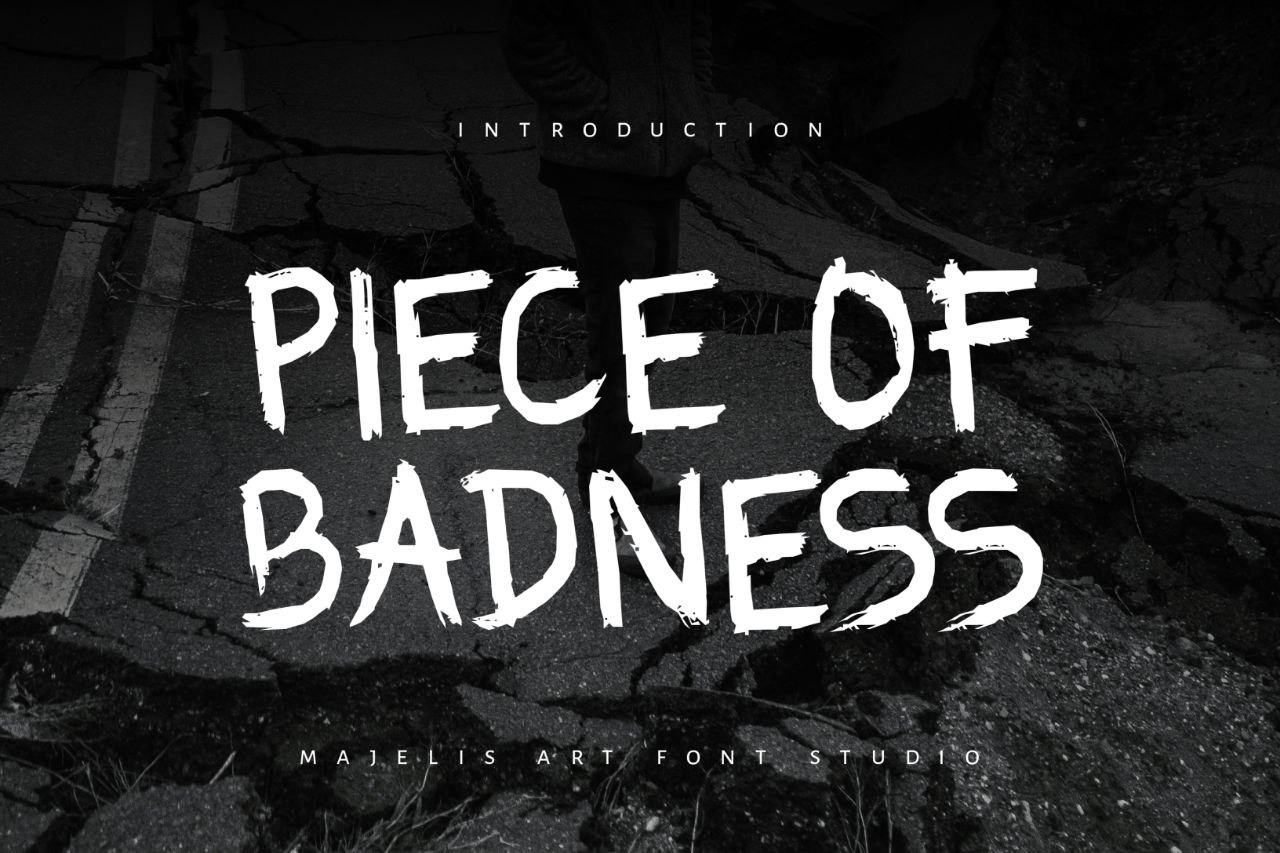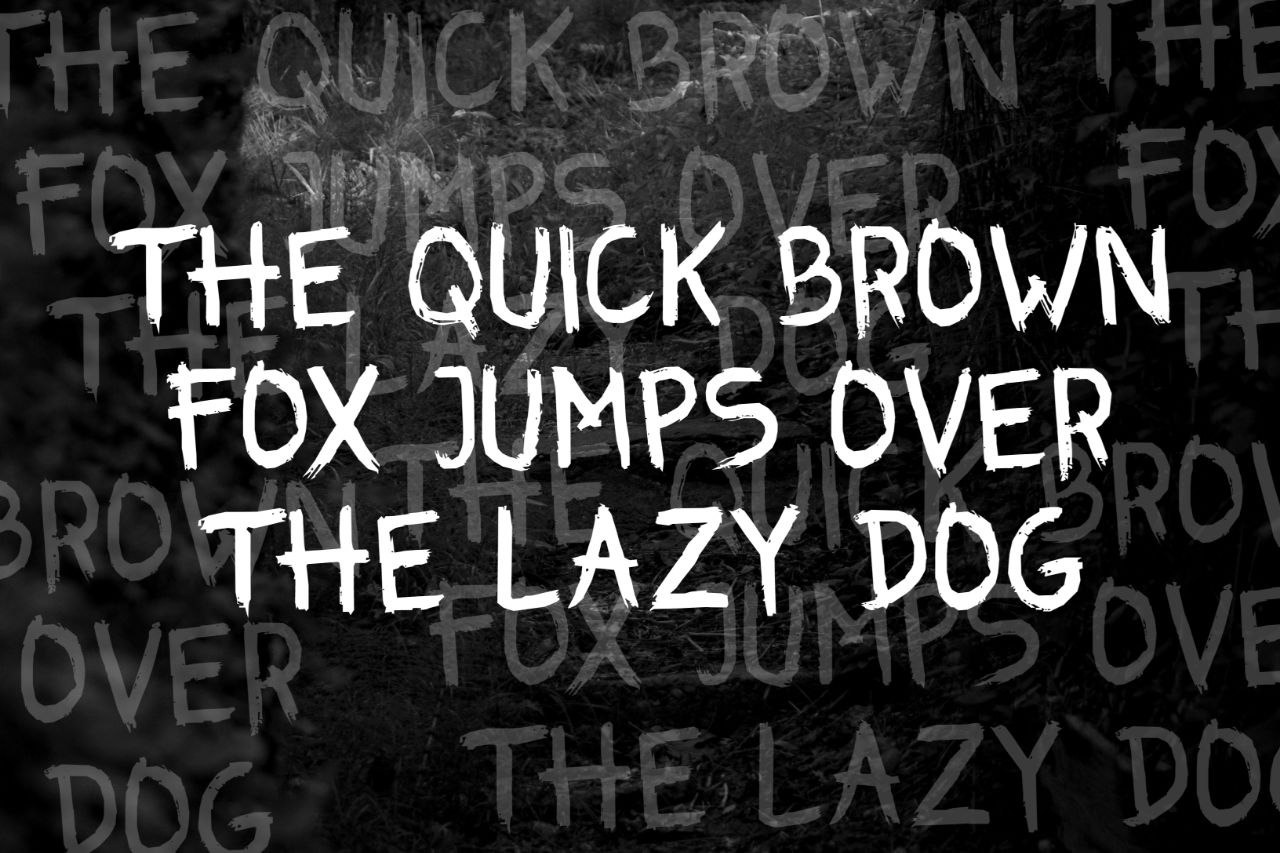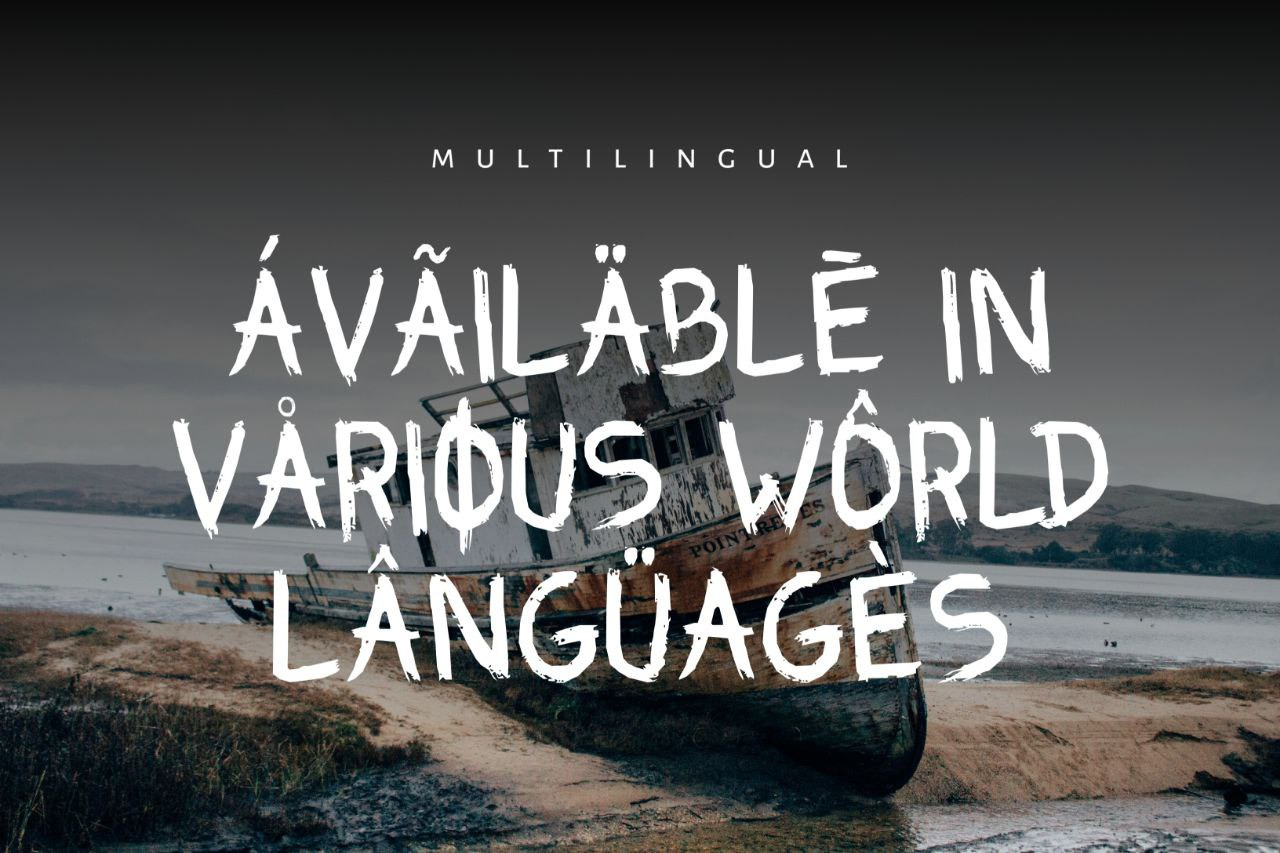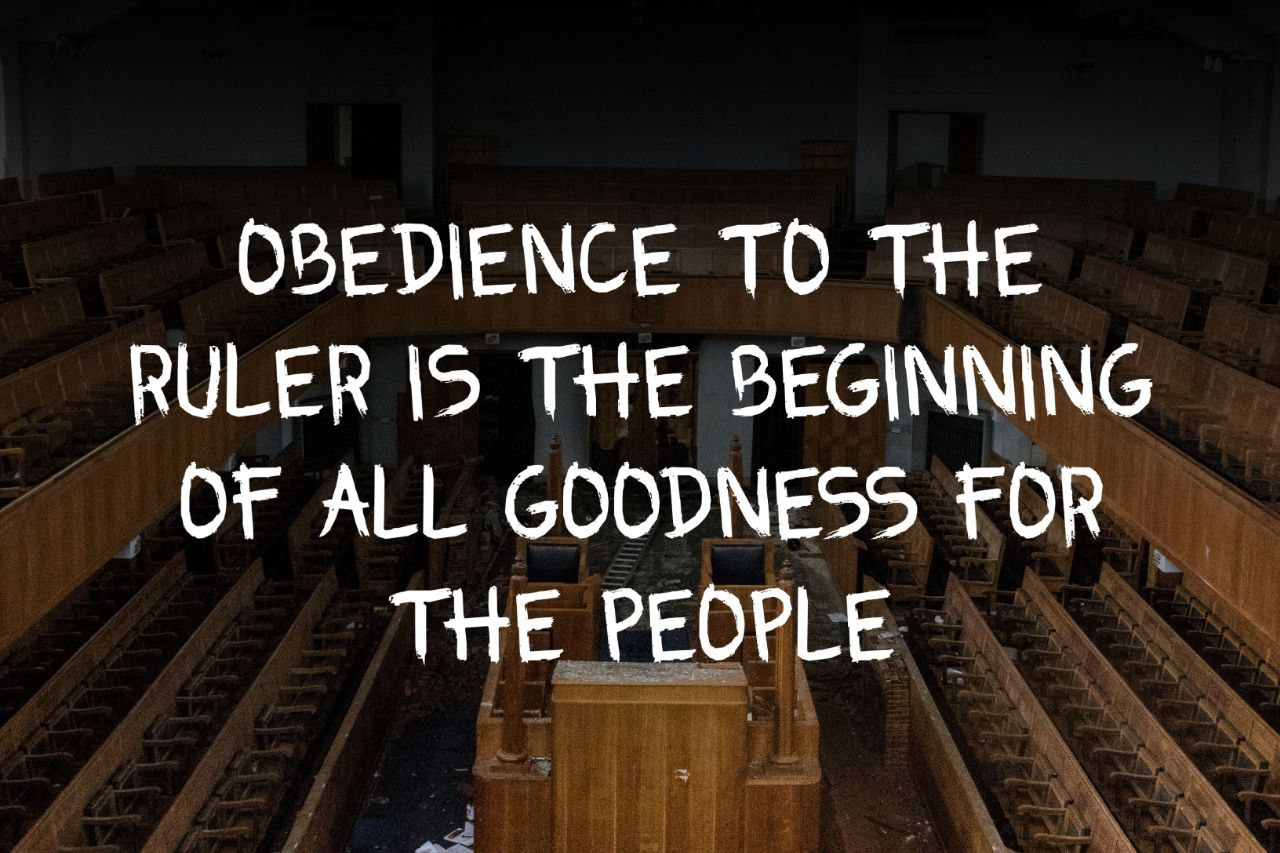
PIECE OF BADNESS FONT
"Piece of badness" is a font that we make with selected brushes and ink, which will make it brush art. We created this font with the harmony of today's young people. The most they use is in the field of graffiti art, or also by using posters or products to make them cooler. "create your art in freedom with "PIECE OF BADNESS"
This font is equipped with
- uppercase and lowercase letters combined
- numbers and punctuation
- ligature
- multilingual from various countries